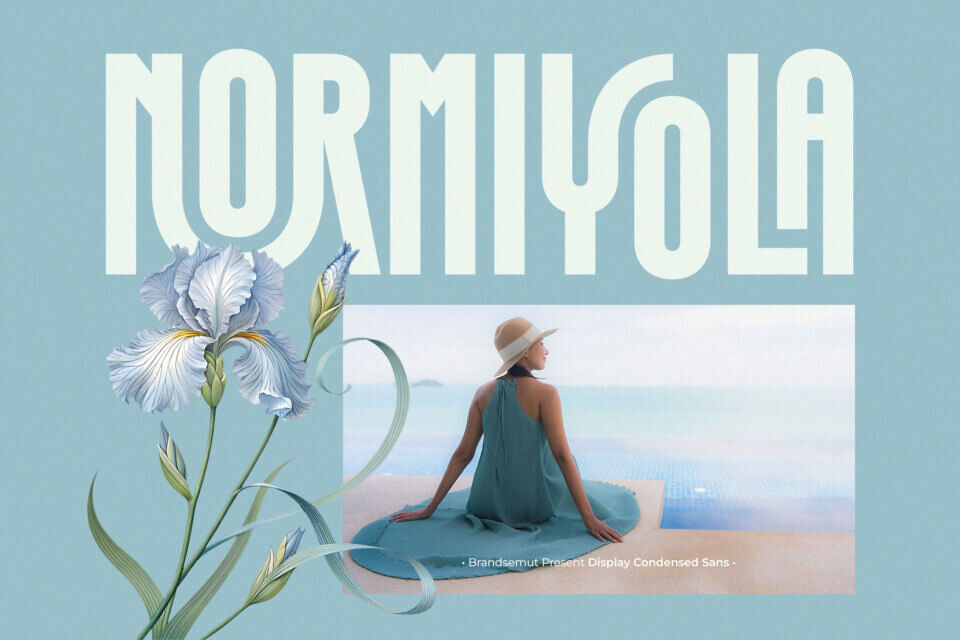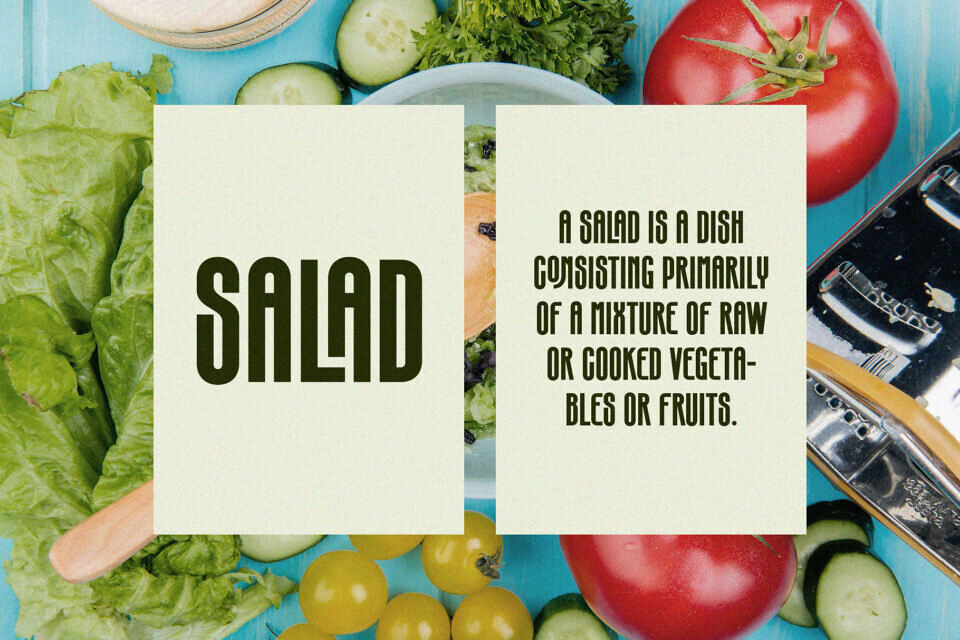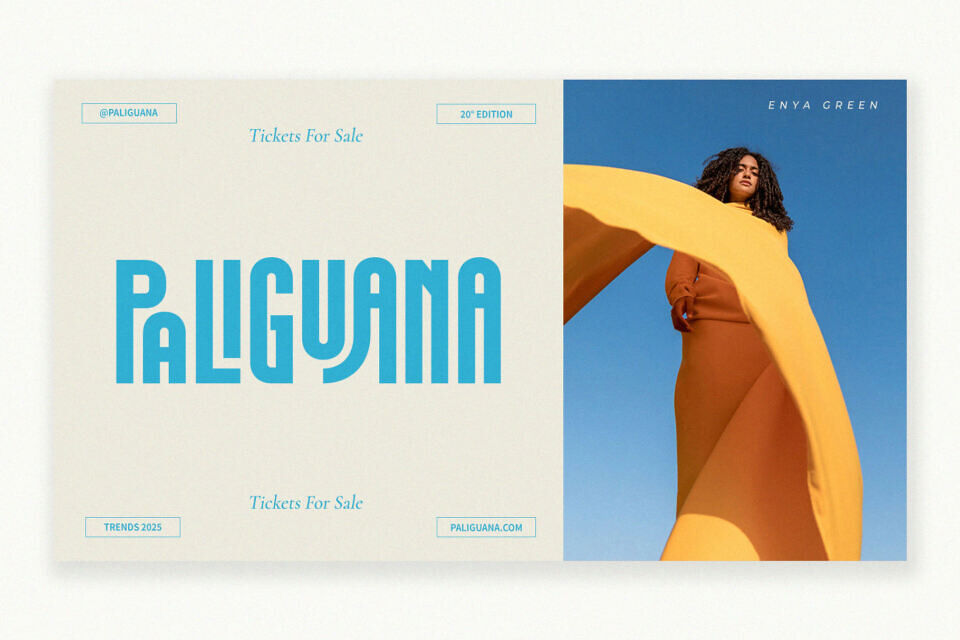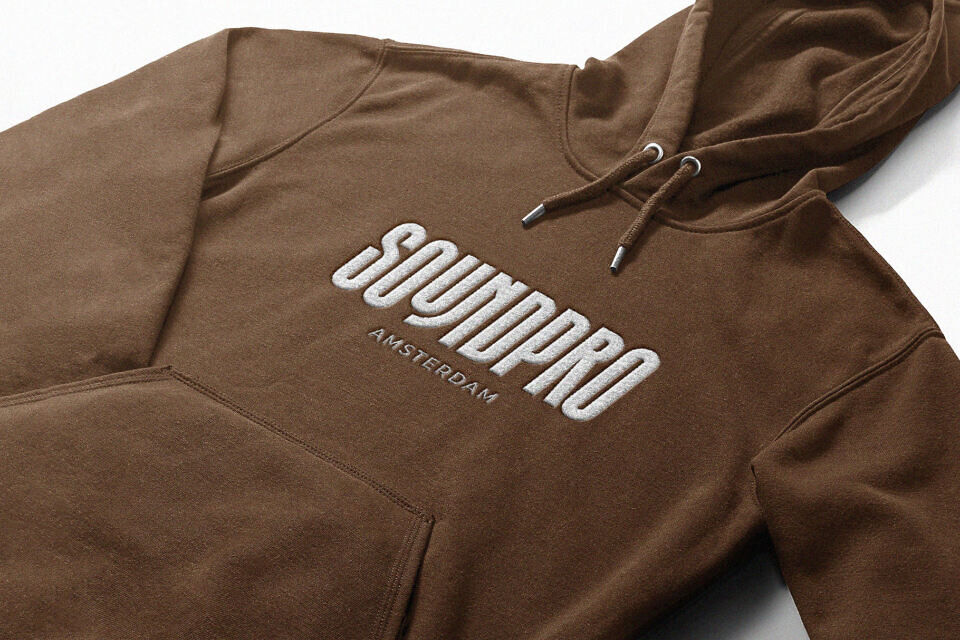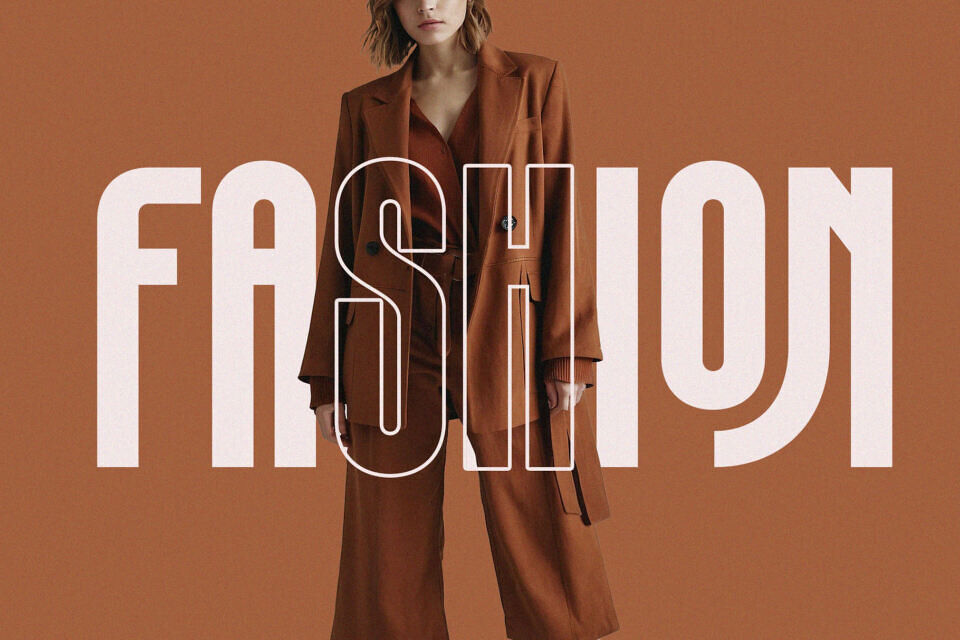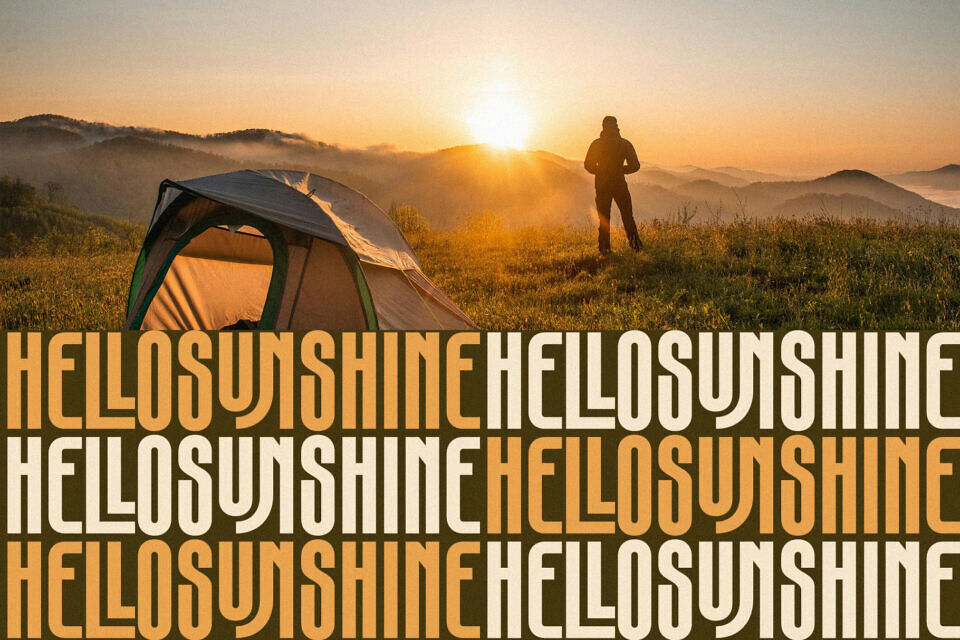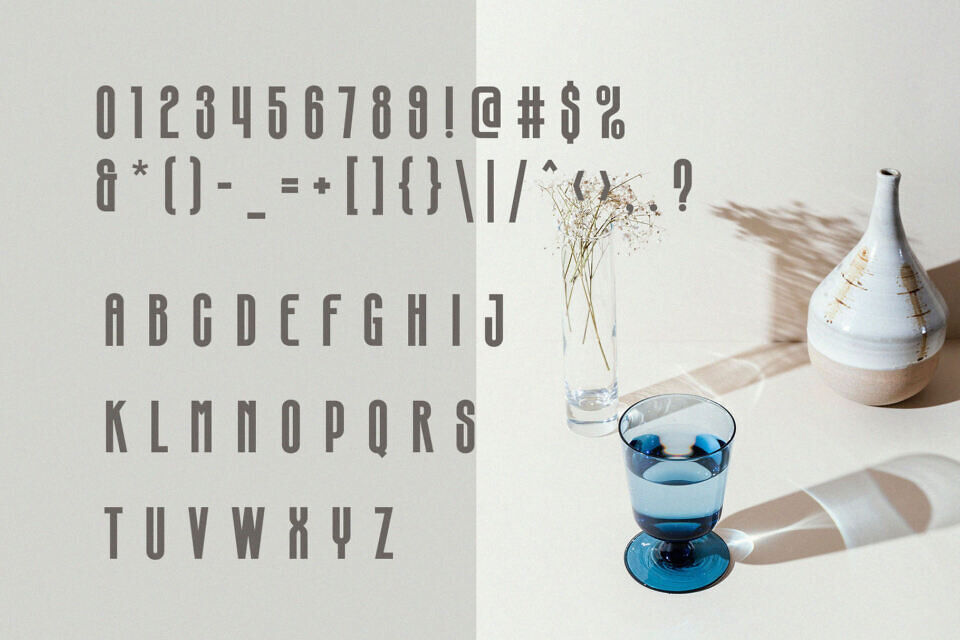
Normiyola Font
Introducing Normiyola Display Condensed Sans. Normiyola is a modern and unique font, best used as a display for headings, logos, branding, magazines, product packaging and invitations. Normiyola come with clean lines and smooth curves give any project an extra touch of class.